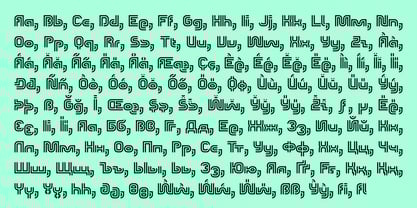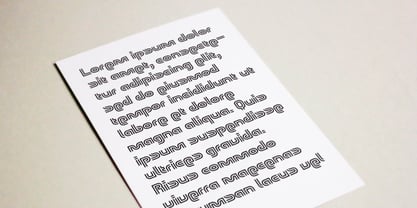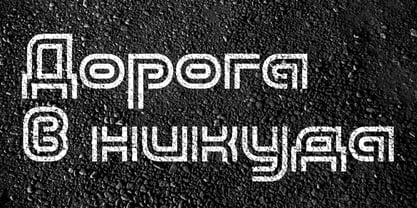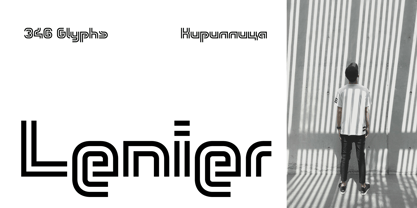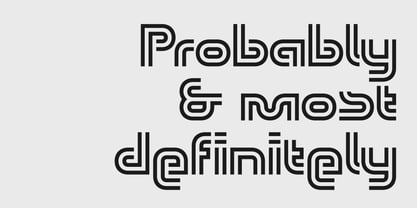
Lenier KD
by Kassymkulov Design
The Lenier KD Font Family was designed by Zhalgas Kassymkulov and published by Kassymkulov Design. Lenier KD contains 1 styles. More about this family
Lenier KD is a Multiline Display font for everyday use. Modular shapes are respected throughout the font including Cyrillic script.